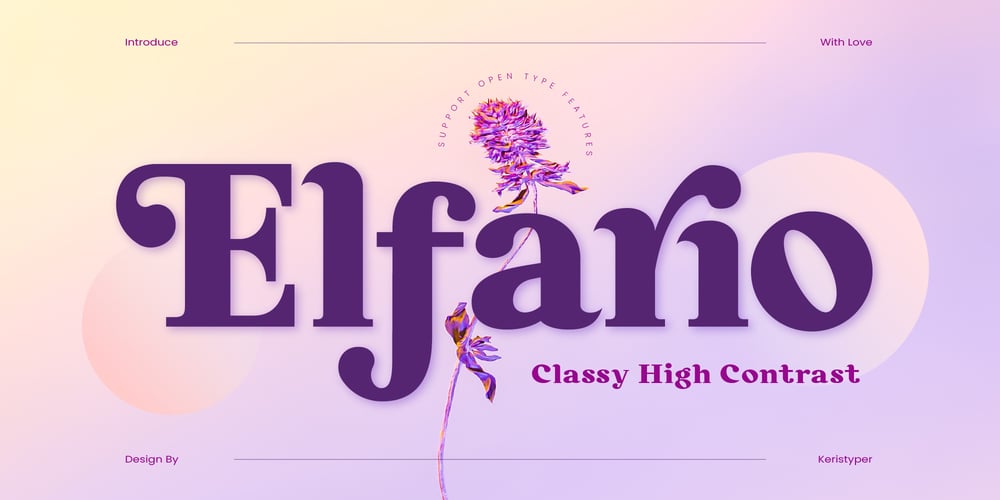
Elfario Font Family was designed by Tezar Tantular and published by Keristyper Studio. Elfario contains 1 styles and family package options. Elfario is a classic high-contrast serif font that exudes sophistication and elegance. Its tall, thin letterforms and dramatic thick-to-thin strokes make it perfect for luxurious branding, editorial design, and high-end fashion projects.Featured: Standard, Uppercase & Lowercase Numeral & Punctuation Multilingual : ä ö ü Ä Ö Ü ß ¿ ¡ Alternate & Ligature PUA encoded We recommend programs that support the OpenType feature and the Glyphs panel such as Adobe applications or Corel Draw, so you can use all the variations of the glyphs.Hope you enjoy our fonts!